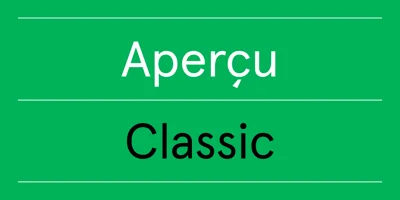
Apercu Font
Apercu Font excels in sophisticated design applications including creative agency branding, contemporary art museums, design studio portfolios, modern editorial layouts, tech company interfaces, cultural institution materials, progressive corporate identities, architectural firm presentations, contemporary gallery exhibitions, and innovative startup communications. This refined typeface brings European design sensibility to cutting-edge projects.
What makes Apercu Font truly exciting is its masterful balance of geometric precision with subtle quirks that create distinctive personality without sacrificing professionalism. The font features clean, well-proportioned letterforms with carefully considered details and excellent spacing that ensure superior readability across all applications. Its contemporary character and design intelligence make it perfect for brands seeking sophisticated typography that appeals to design-conscious audiences and creative professionals.
The Apercu Font family encompasses comprehensive weights including Light, Regular, Medium, Bold, and potentially Mono variations with corresponding Italic styles. These extensive options allow designers to create nuanced typographic hierarchies that maintain the font's distinctive contemporary character while providing complete flexibility for complex design systems and multi-platform applications.
Whether you're developing creative industry branding, designing contemporary publications, or creating culture-focused campaigns, Apercu Font provides the design sophistication and typographic excellence that discerning creative projects require. Its exceptional refinement and contemporary appeal make it invaluable for designers working with cultural institutions, design agencies, and progressive brands requiring intelligent typography that reflects modern design thinking and creative excellence.